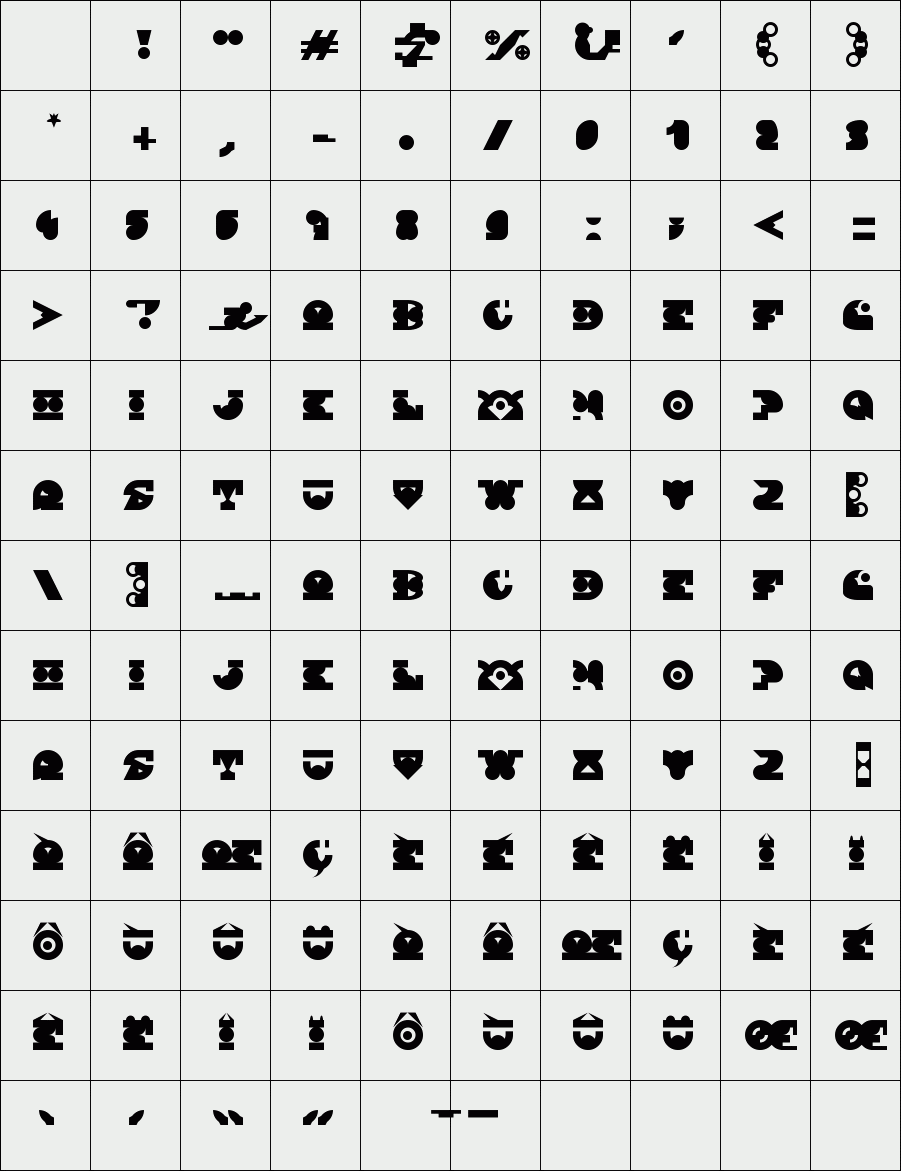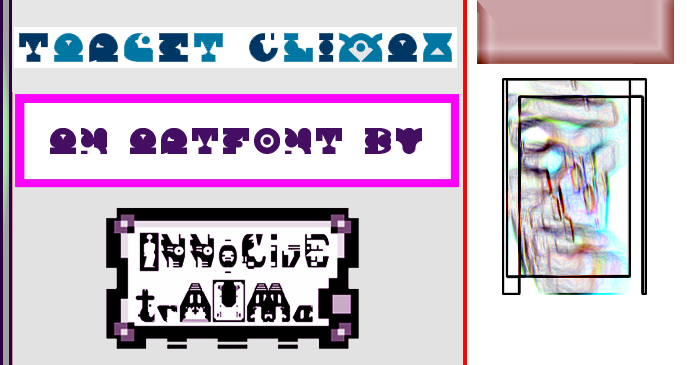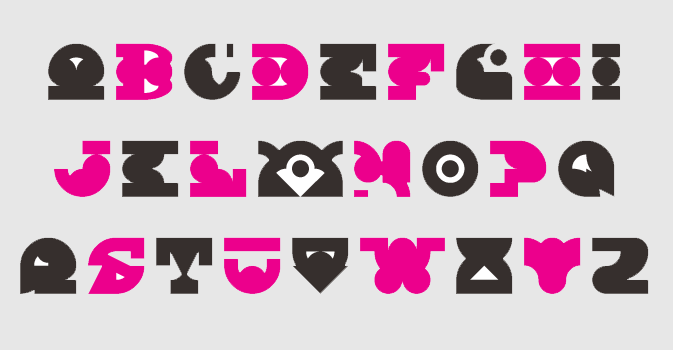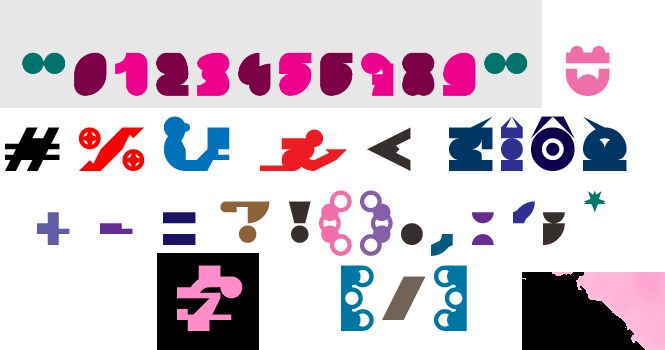
trAUMa 92 / Target Climax
"Target Climax", like all the "trAUMa" series, works at the frontier between Art & Type Design, Figuration & Abstraction, each font is a comprehensive world in which every glyph is a "living" entity. But put together they can produce your messages in the most accurate way.